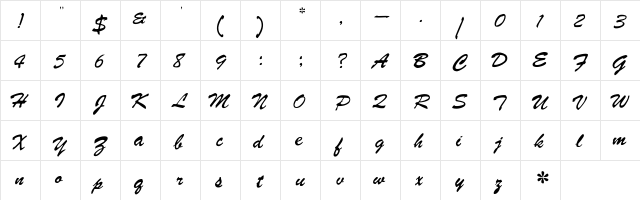
Style- Regular
Design Context for Style- Typeface
Style- is a composed and adaptable typeface that performs quietly and consistently across a wide range of design contexts.